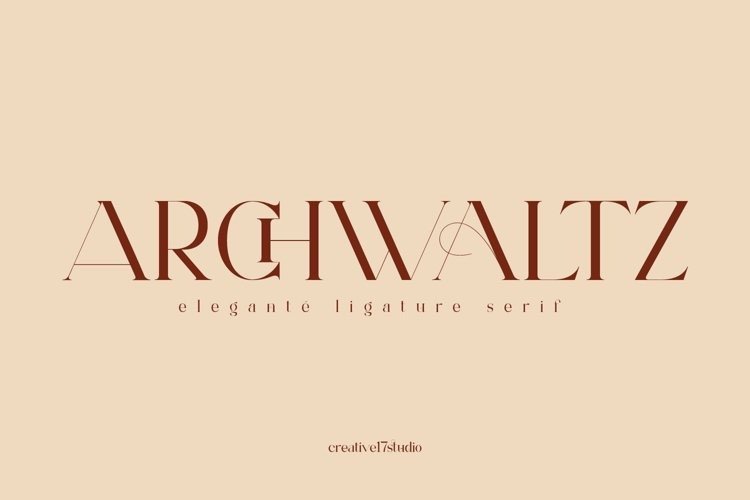
Archwaltz Font
Archwaltz Serif Font is an authentic and playful serif font manufactured by Irfan Hidayat. This typeface is a font that is super unique and has a luxurious also modern impression. With lots of elegant ligatures, you definitely don’t want to forget it.
Archwaltz is ideal for a wide variety of designs, such as news headlines, letter logos, business cards, poster designs, wedding invitations, and many uses in other design projects. Archwaltz containing many characters and ligatures, numbers, punctuation and European Languages.